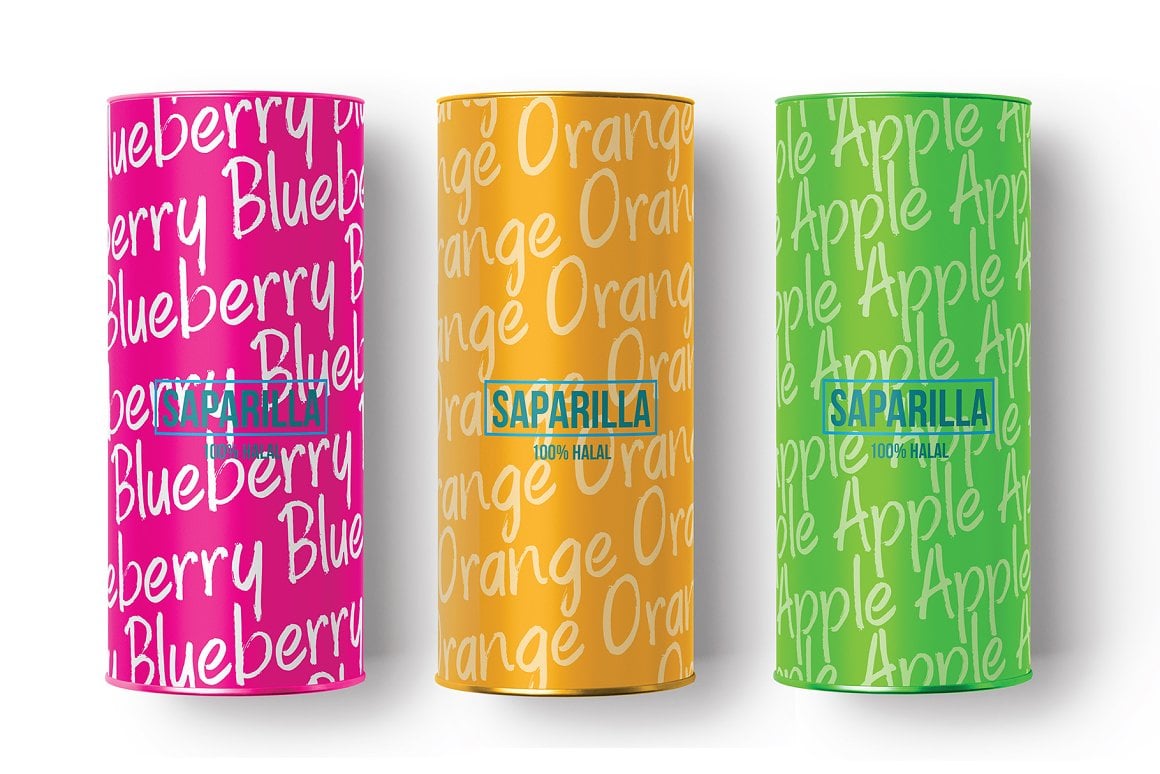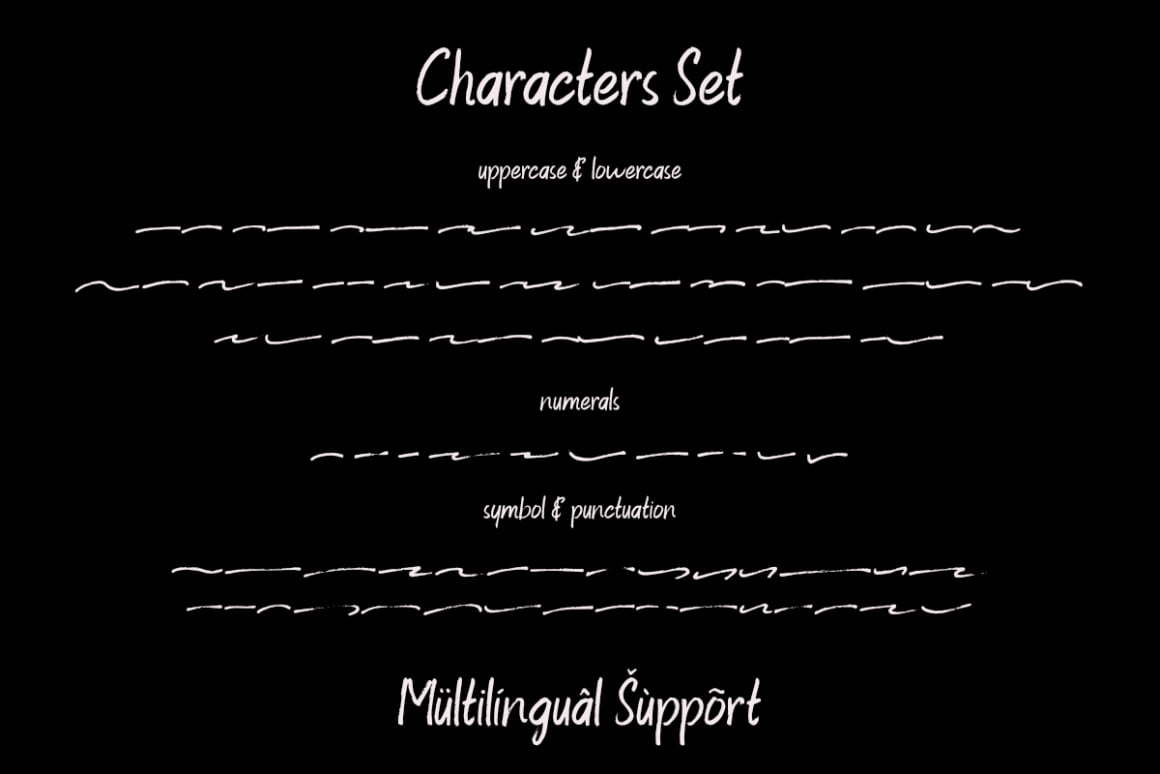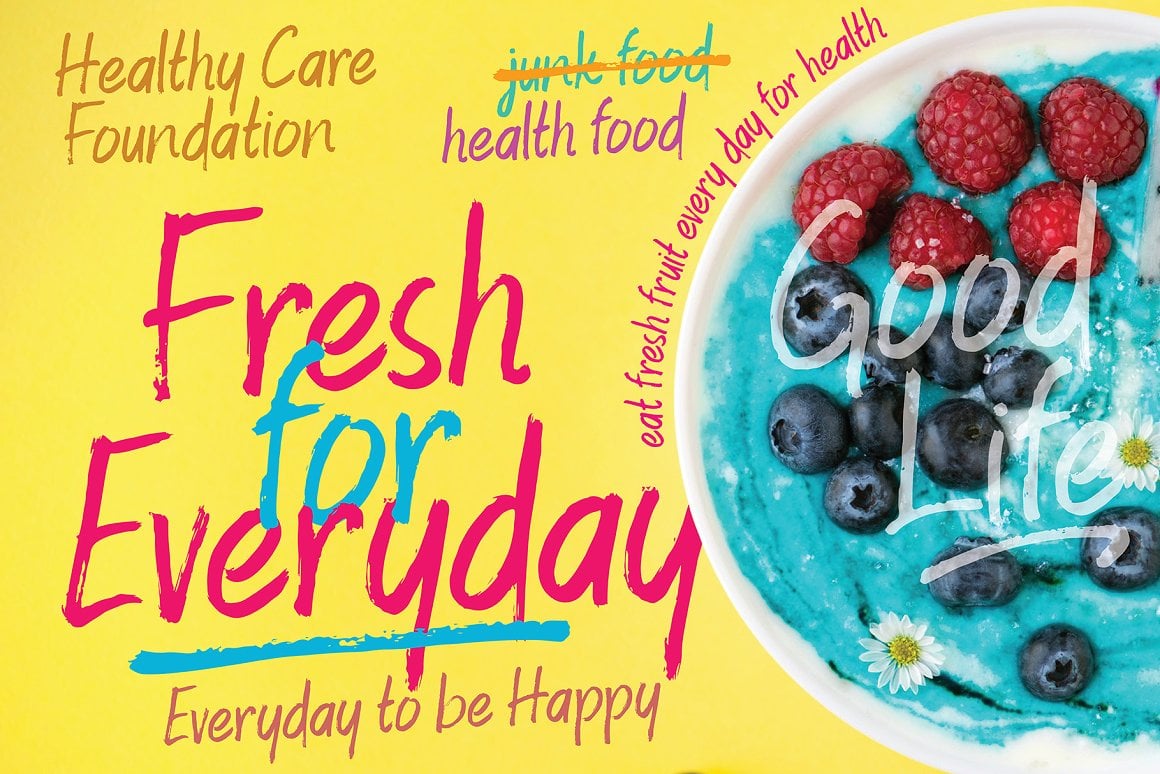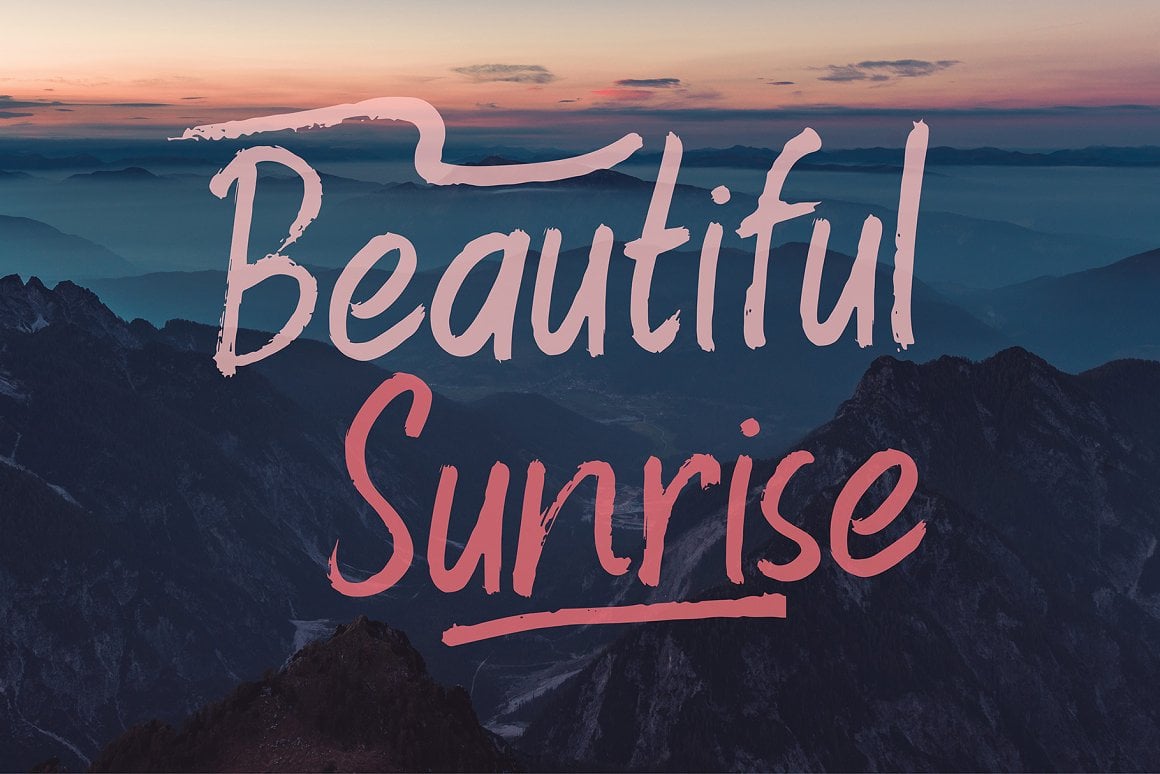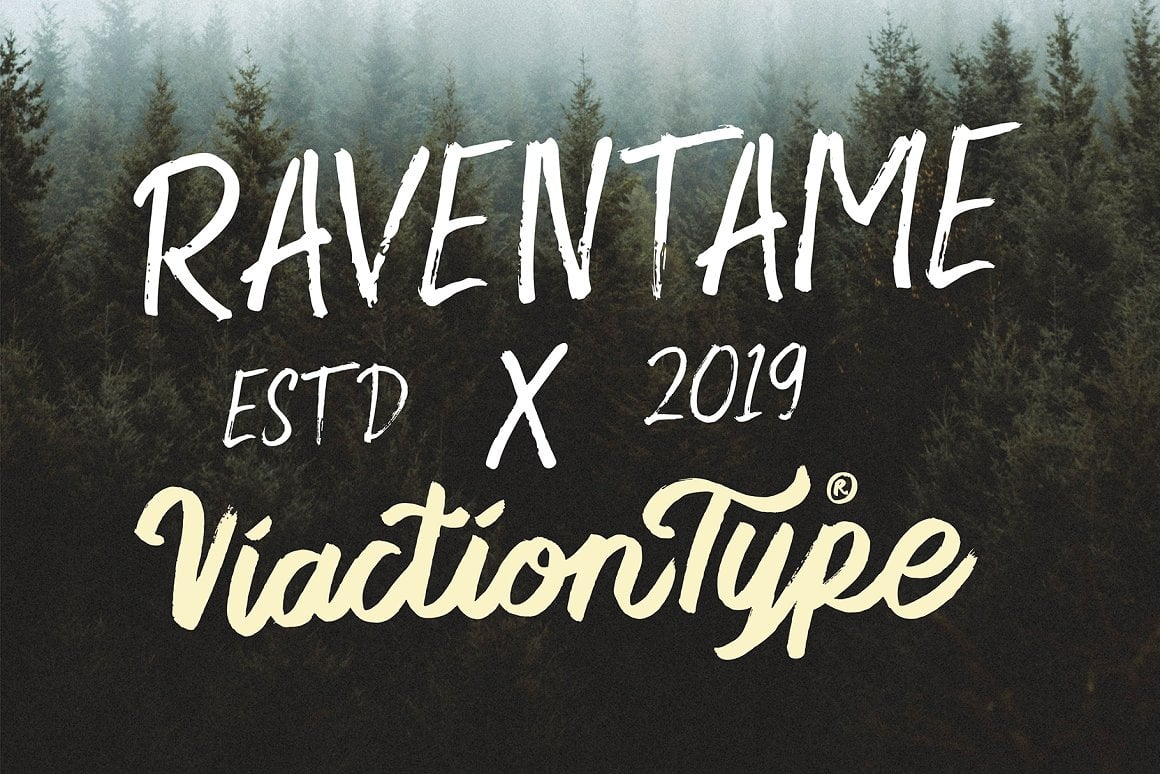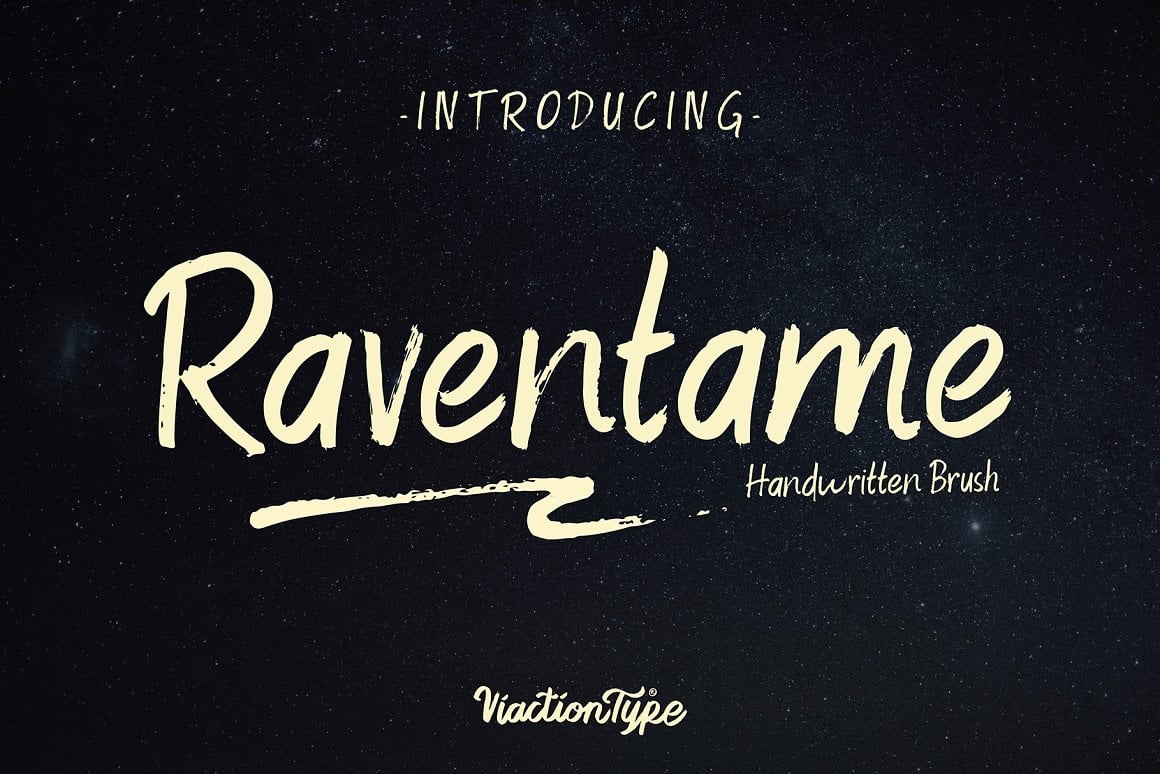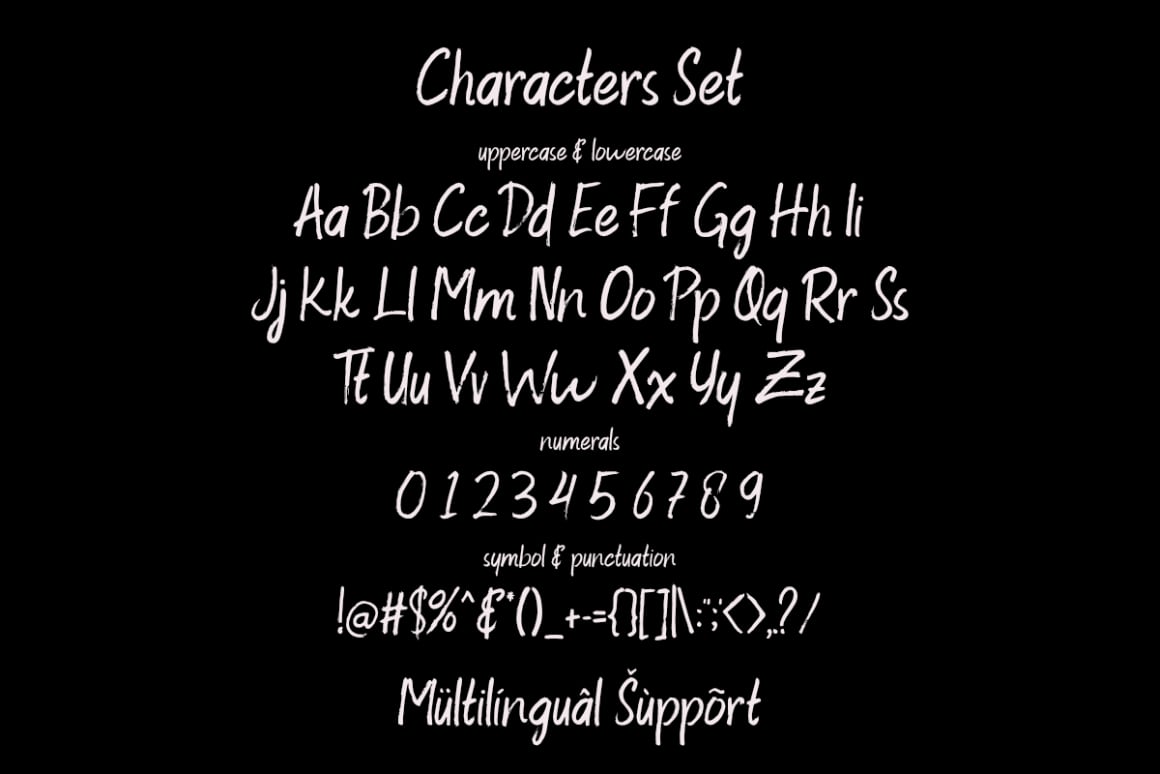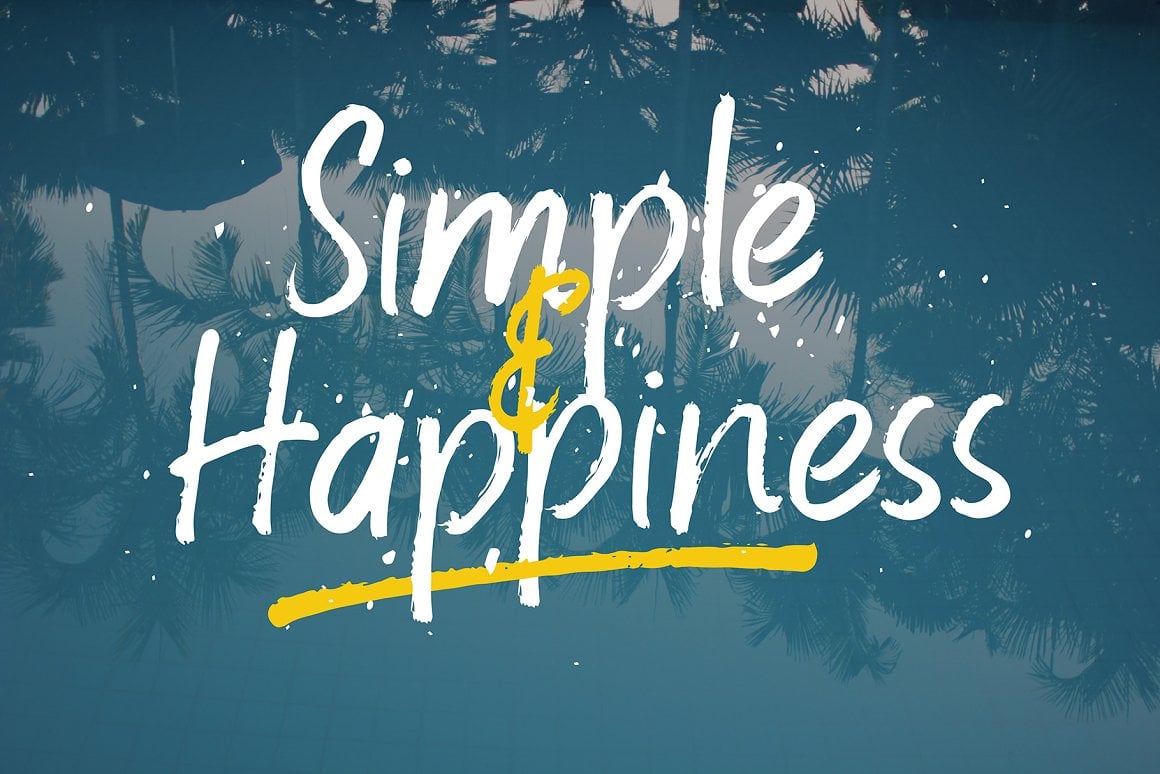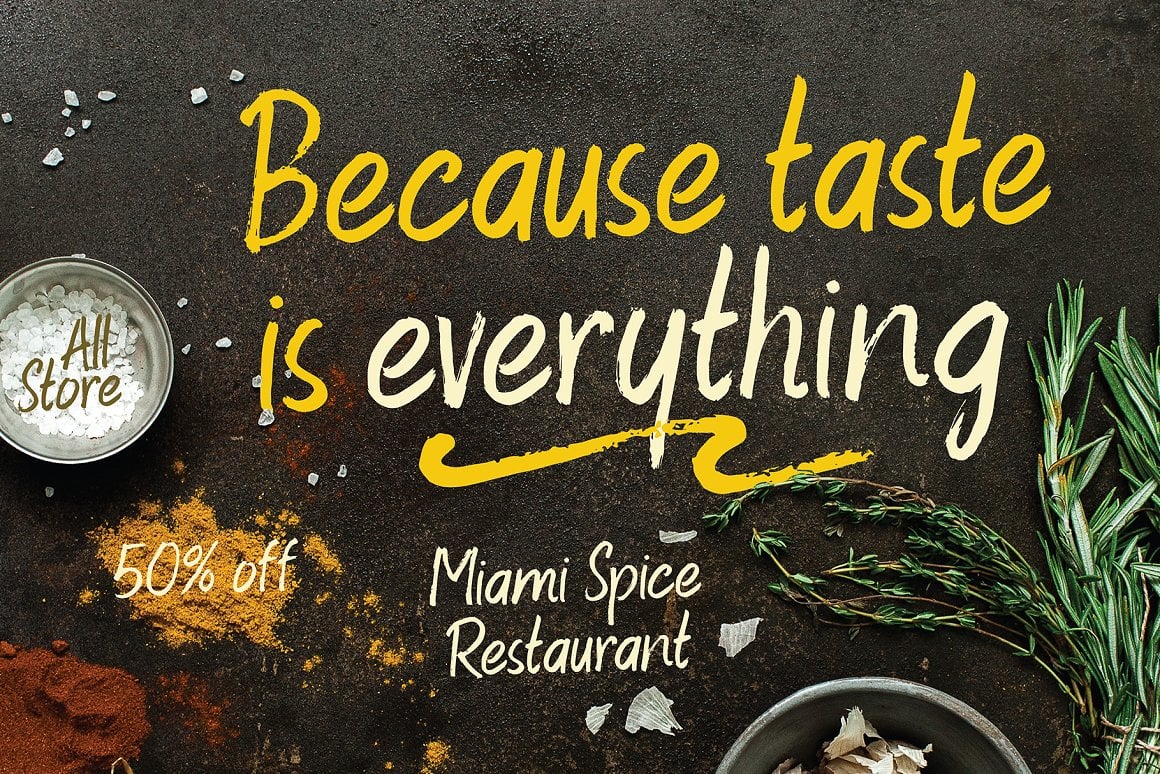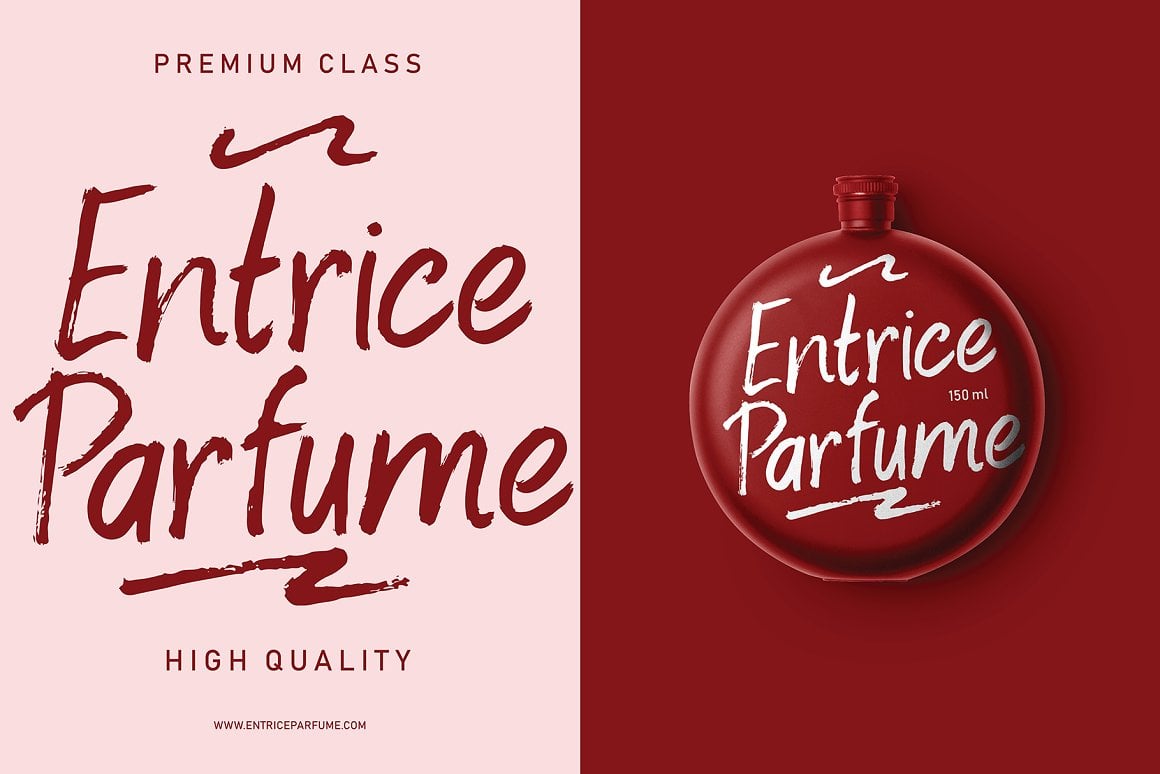
Raventame – Brush Font
Raventame font with original handwriting brush style, looks very natural and beautiful. It is suitable for boutique brand, photography, magazine, quote, business card, logo, poster and many more. Script is equipped with multilingual support and PUA Encoded.
This font is equipped with the Raventame Swash version which is very easy to combine with the Raventame font. Very many swash options with a variety of original hand strokes.